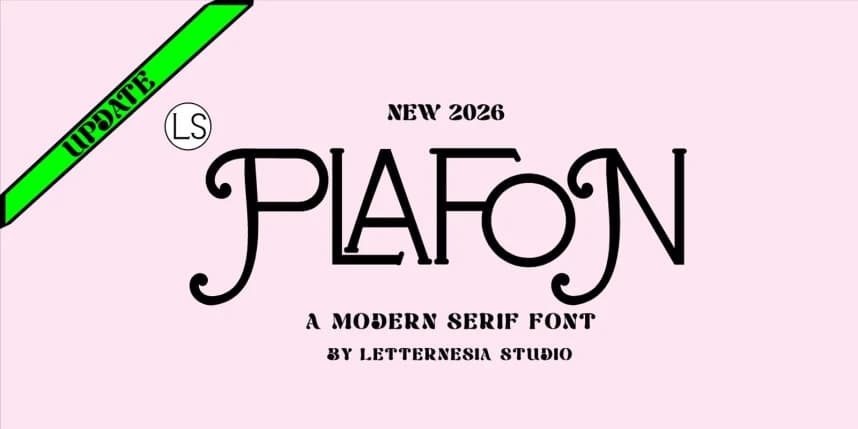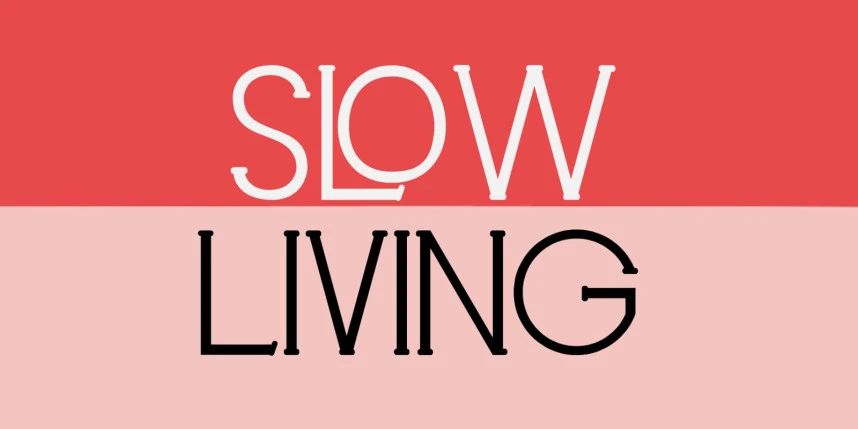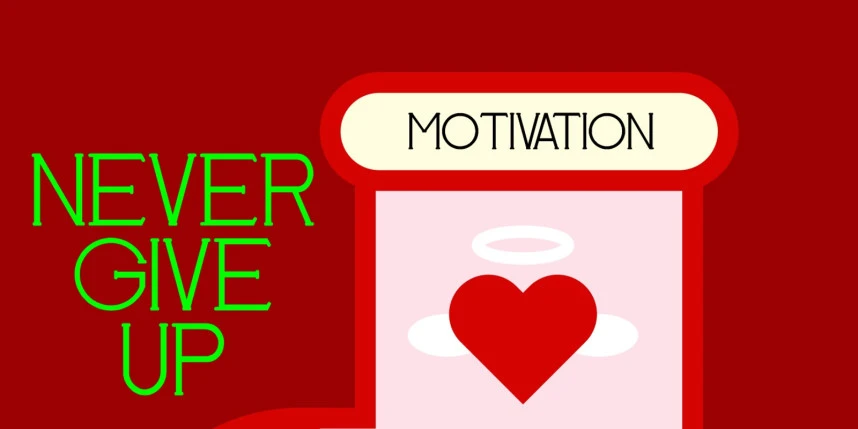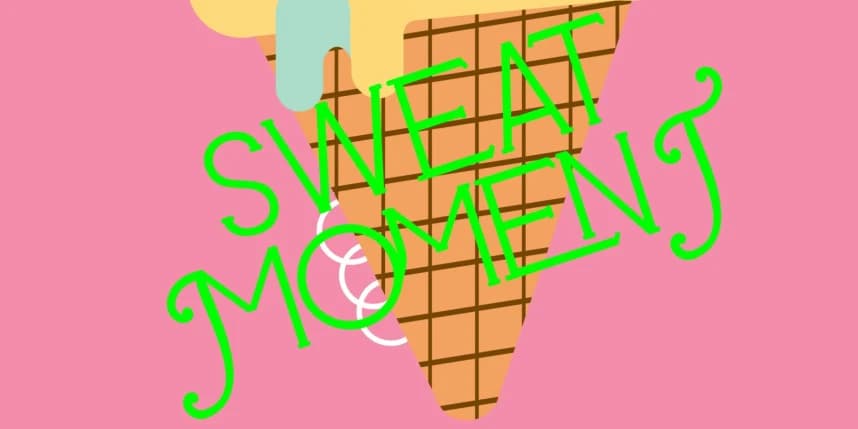
Lsplafon Font
LSPLAFON Font is a bold and modern display typeface designed to deliver strength, clarity, and professional character. Built with solid letterforms and balanced proportions, this font projects confidence and reliability—making it perfect for construction